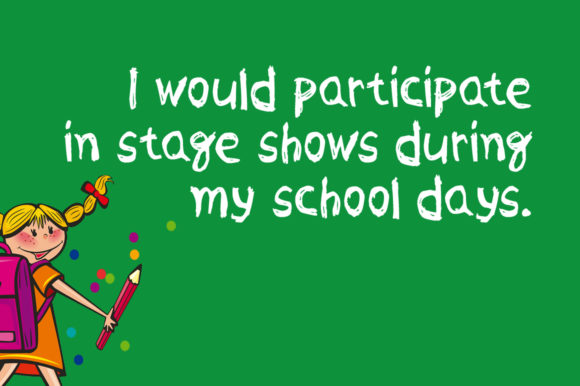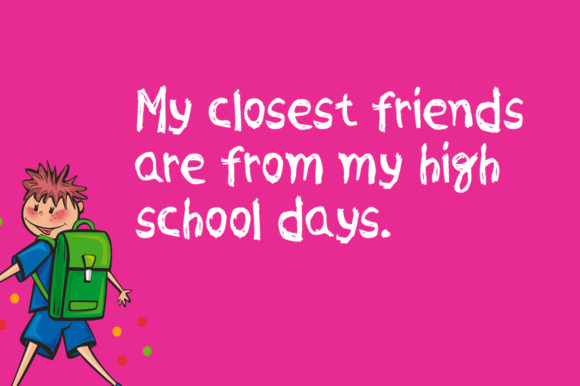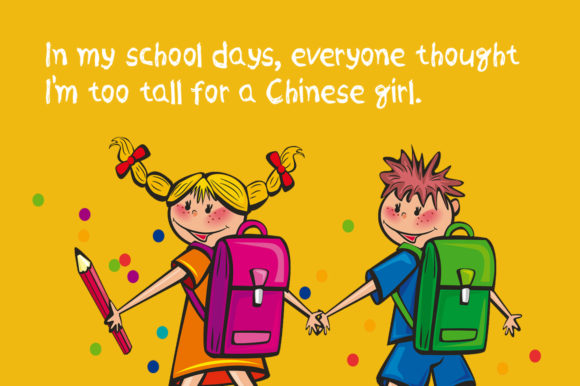
HomeScript FontsSchooler Font Script Fonts Schooler Font FacebookXPinterestWhatsApp Schooler Font Poster 2 Schooler Font Poster 3 Schooler Font Poster 4 About Schooler Font The Schooler is a fun handwritten font. It has a playful feel which makes it perfect for kids designs. DOWNLOAD ON CREATIVE FABRICAThis font is sold and delivered by Creative Fabrica. Font Canyon may earn a commission if you buy through this link. People also explored Simple Paper Font Brightstone Font Rutherford Font Philates Bulaga Font Local Bookstore Font Flos Mediocris Font Tropicalling Font Sweethome Font Challiren Font 363 0 TagsSchooler Font Previous articleSilentmind FontNext articleMillenial Script Font LEAVE A REPLY Cancel reply Comment: Please enter your comment! Name:* Please enter your name here Email:* You have entered an incorrect email address! Please enter your email address here Website: Save my name, email, and website in this browser for the next time I comment. Personal Use Free Sybil Green Personal Use Free Read more about this font Densmore Personal Use Free Read more about this font Shnobel Personal Use Free Read more about this font Manbow Personal Use Free Read more about this font BLOG How to Install and Use Fonts on Windows, macOS, and Web Projects How to Install and Use Fonts on Windows, macOS, and Web Projects Fonts are a crucial part of design and branding. Whether you’re designing a... The 10 Best Handwriting Fonts to Add Personality to Your Designs How to Cut Any Font on Cricut: Convert a Font to SVG (Free) Best Fonts for YouTube Videos: Make Your Thumbnails Stand Out